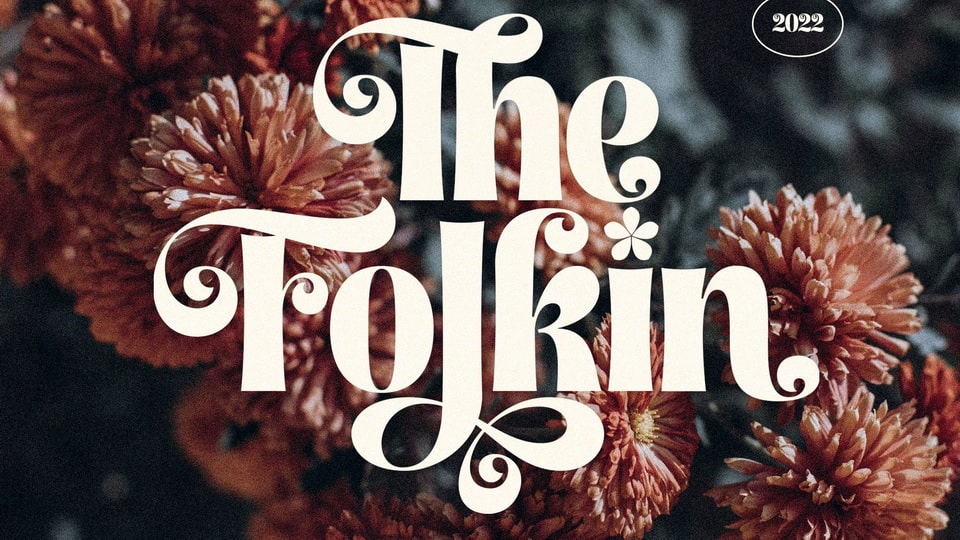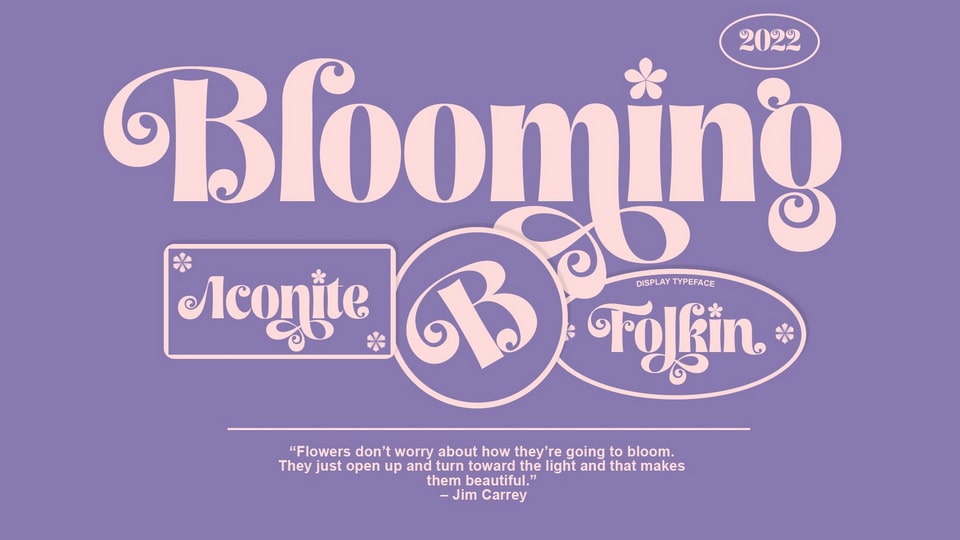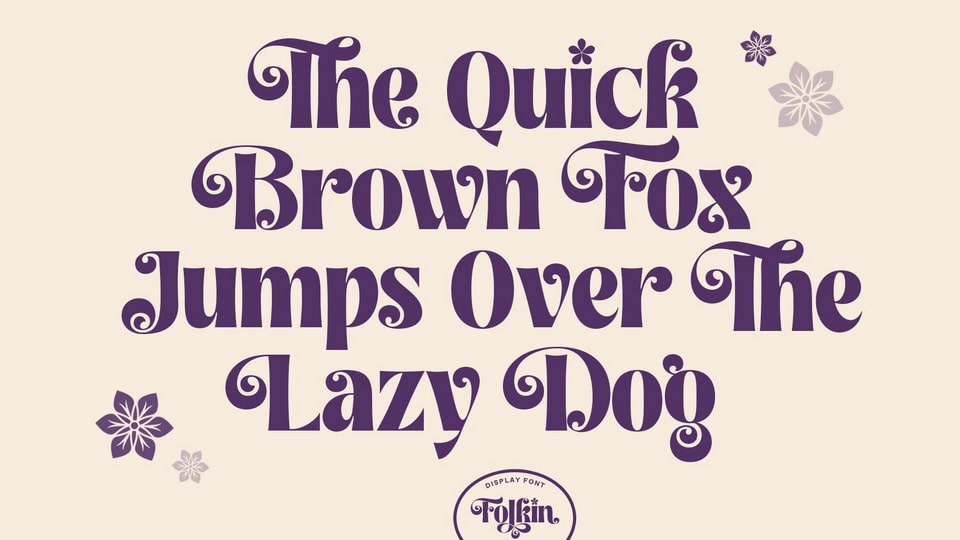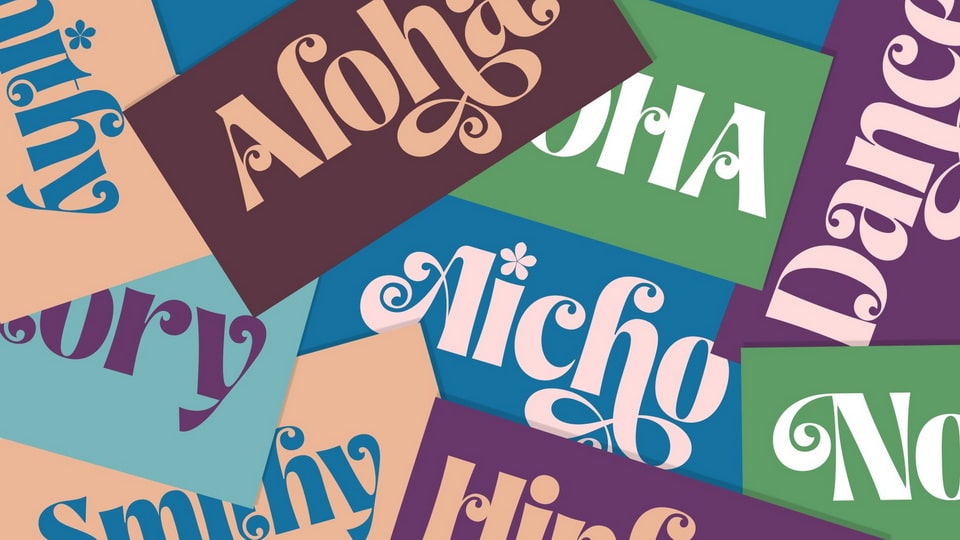
Folkin is a playful and fancy serif font with vintage vibe. It has a classy, elegant, and modern look that can be used for logos, branding, invitations, stationery, wedding designs, social media posts, and much more.